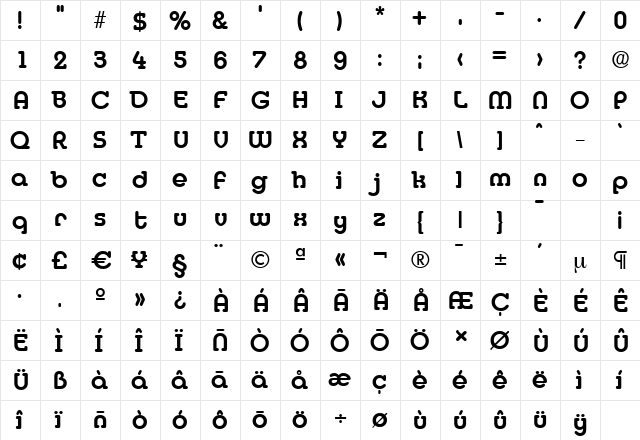
MexicoSerial Bold
Design Context for MexicoSerial Typeface
MexicoSerial takes a measured approach to typography — its balanced proportions and neutral character make it a reliable workhorse for both digital and print work. The heavy weight commands attention and anchors typographic hierarchies.